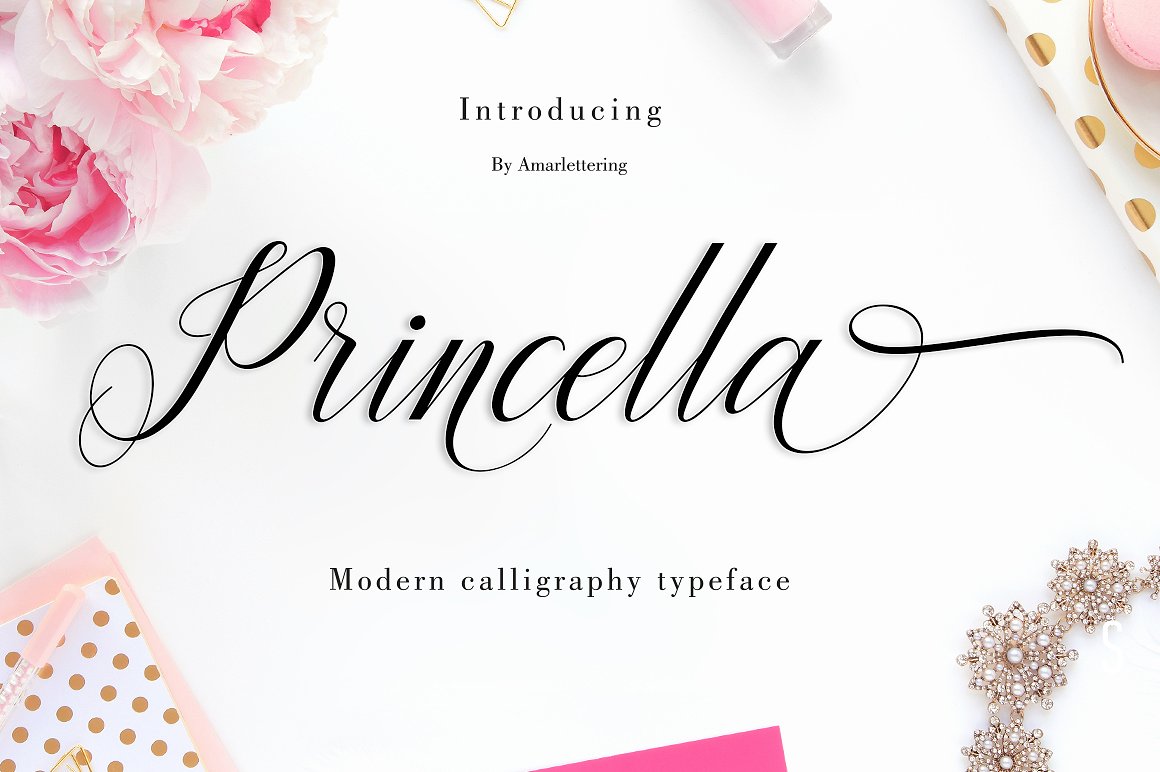
Princella Calligraphy
Princella Calligraphy Font
Princella script a new fresh & modern script with a handmade calligraphy style, decorative characters and a dancing baseline! So beautiful on invitation like greeting cards, branding materials, business cards, quotes, posters, and more!!